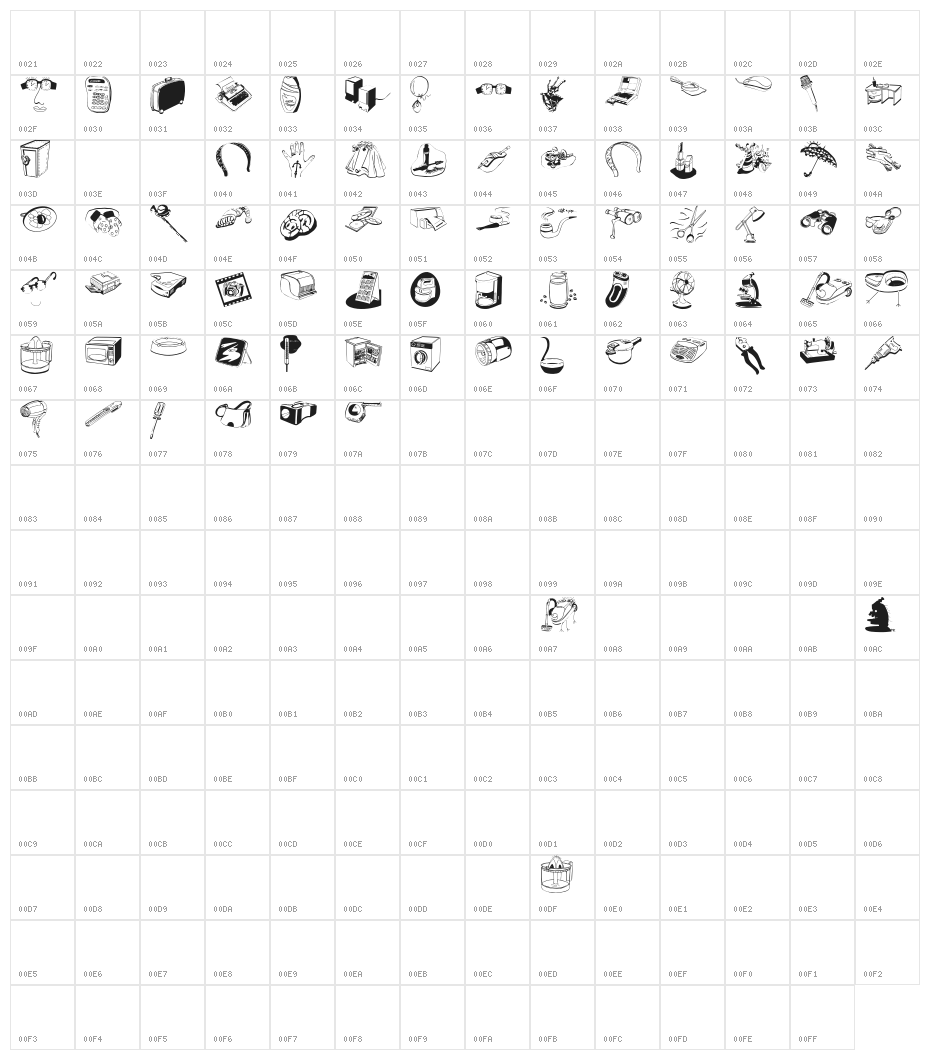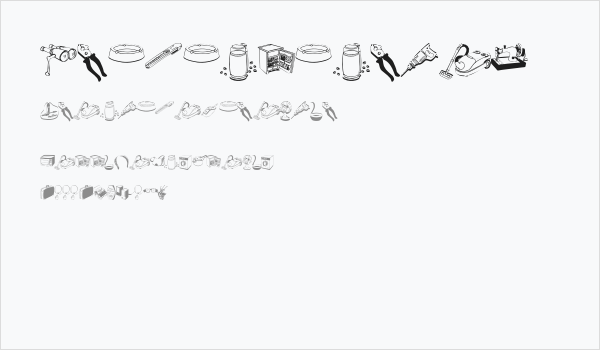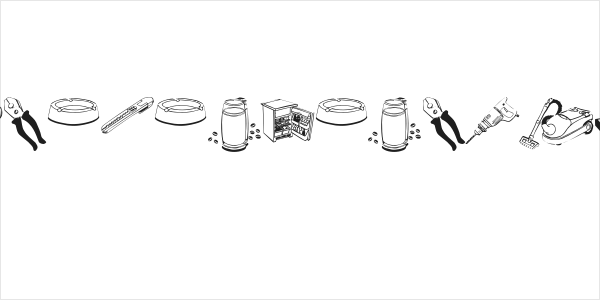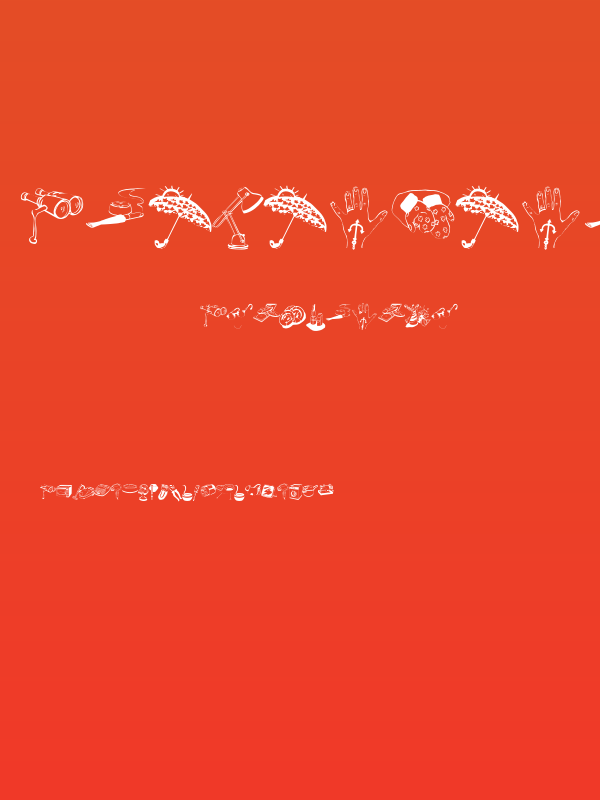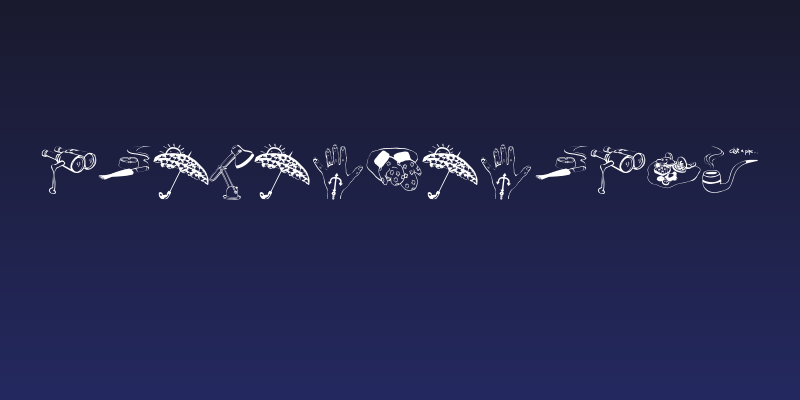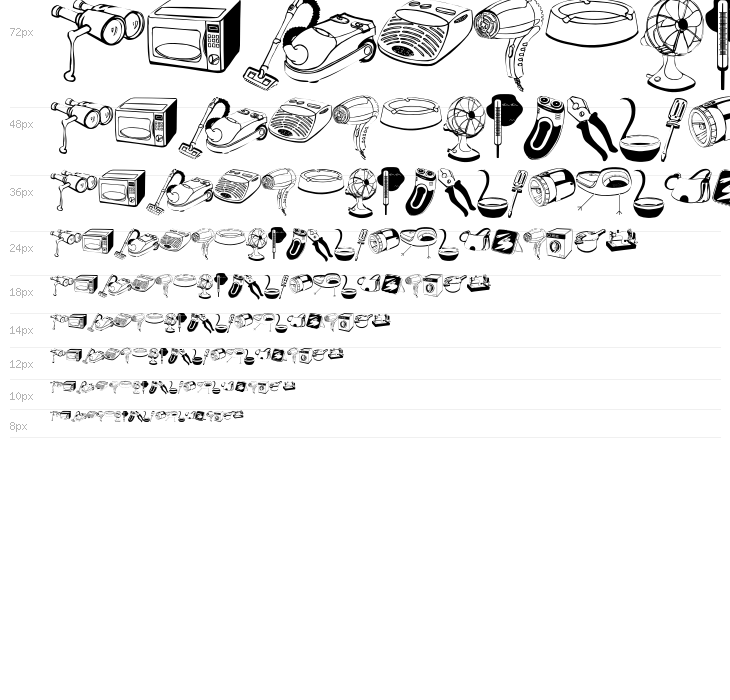
Trivialiartes Font
Trivialiartes Description
A playful, illustrative font where each character is represented by a detailed black-and-white drawing of a household object or tool, creating a whimsical and decorative alphabet with high visual interest.
| Overall Style | Decorative, Playful, Whimsical |
| Use Case | Headlines, Posters, Creative Titles, Educational Materials |
| Proposed Projects | ChildrenΓ’β¬β’s books, educational posters, creative branding, playful invitations, art projects. |